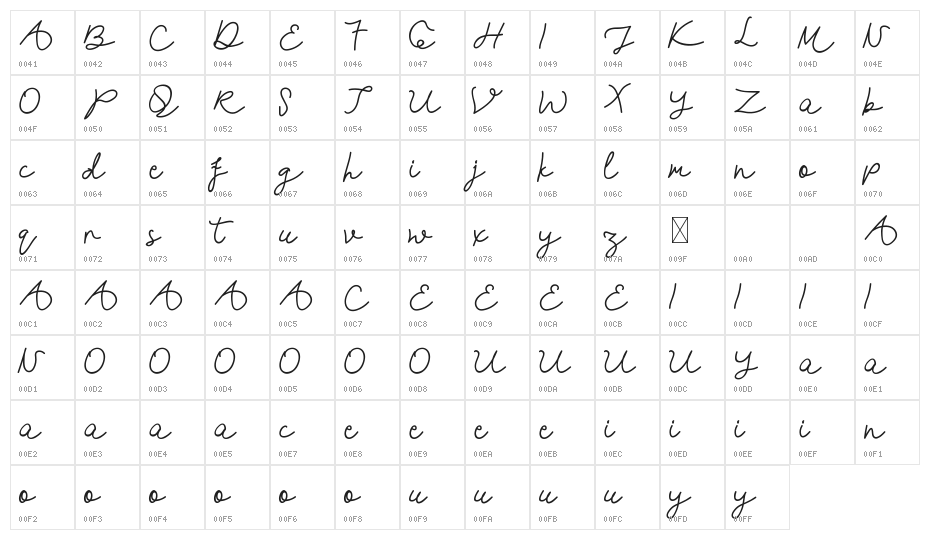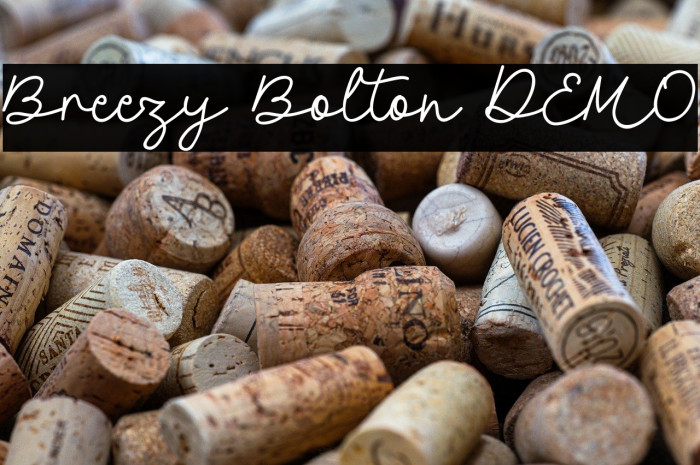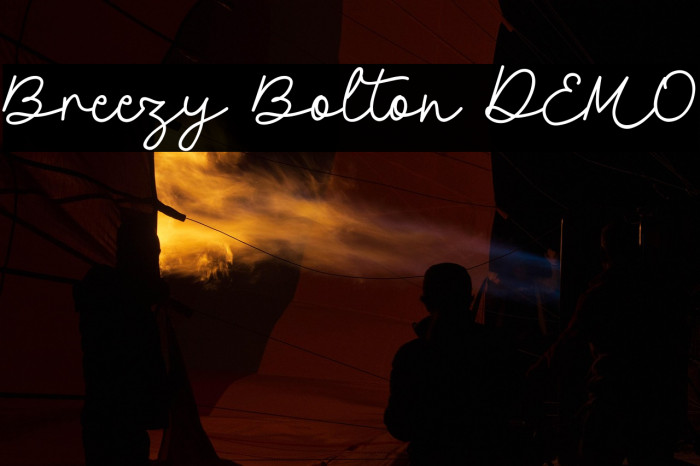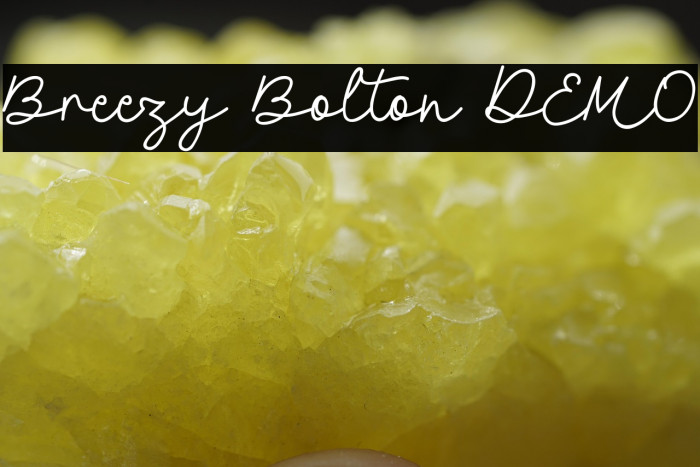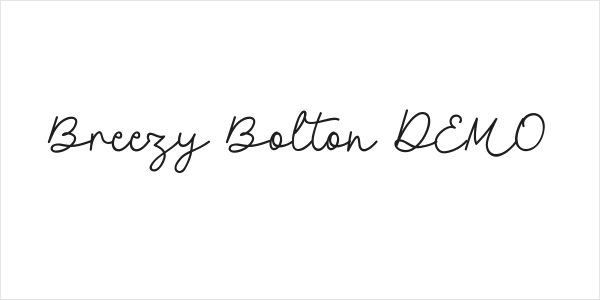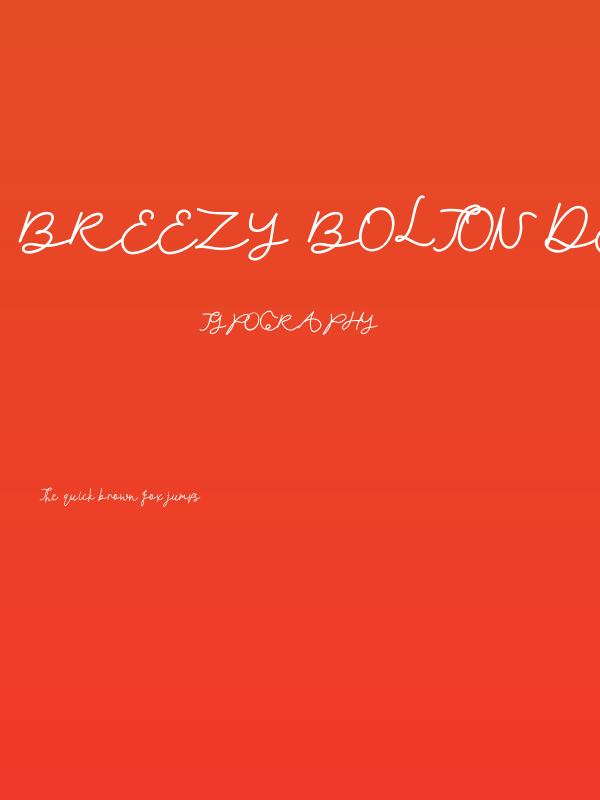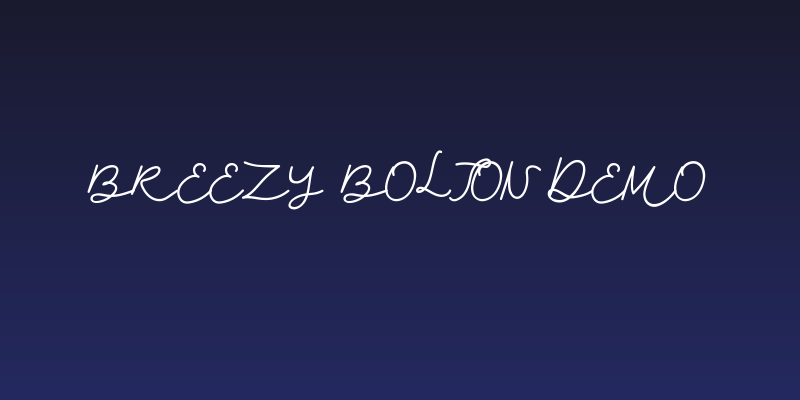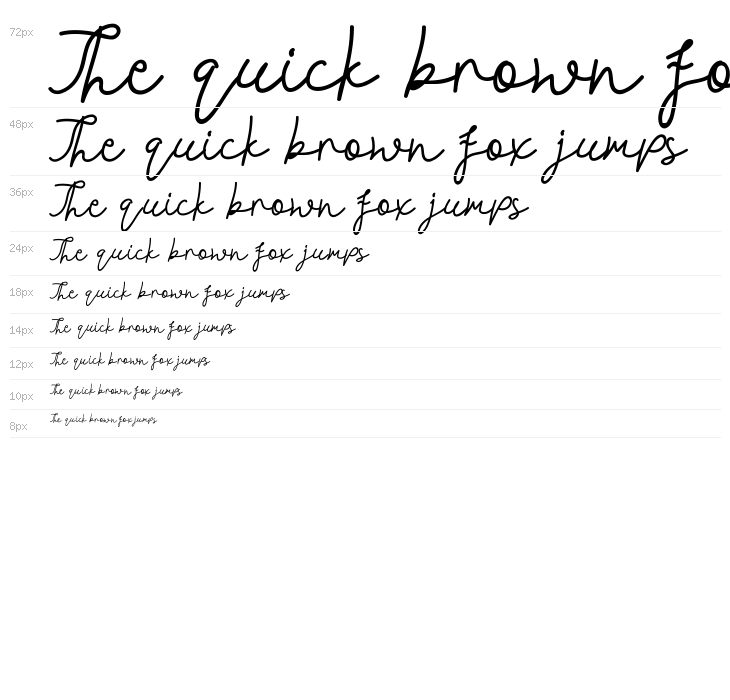
Breezy Bolton DEMO Font
Breezy Bolton DEMO Description
This font exudes a casual and flowing handwritten style, characterized by its fluid and connected letterforms. The strokes are smooth and slightly varied in thickness, giving it a natural and organic feel. The uppercase letters maintain a consistent height, while the lowercase letters exhibit a playful bounce, adding to the font's charm. The overall appearance is both elegant and approachable, making it suitable for a variety of informal and creative applications. The font's design is reminiscent of personal handwriting, which can evoke a sense of warmth and authenticity in any project.
Overall StyleCasual, Elegant
Use CaseLogos, Invitations, Social Media
Proposed ProjectsIdeal for personal invitations, greeting cards, branding projects, and social media graphics.